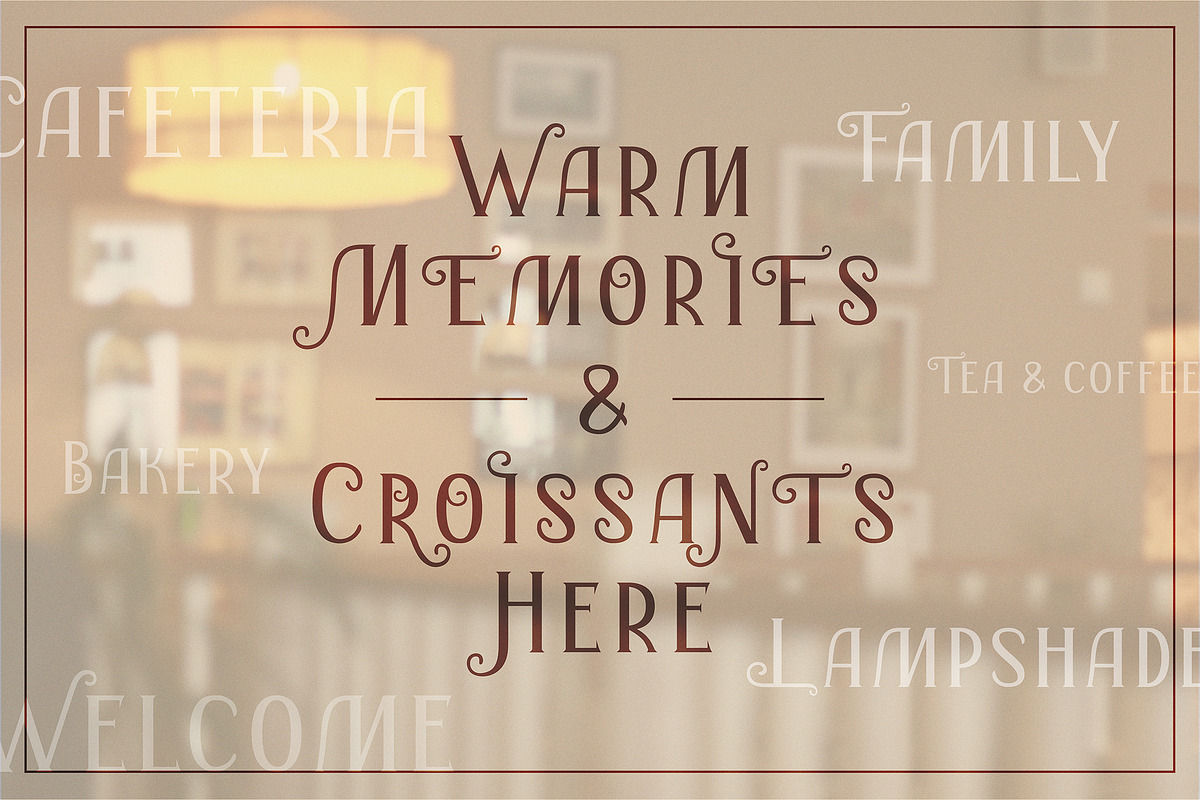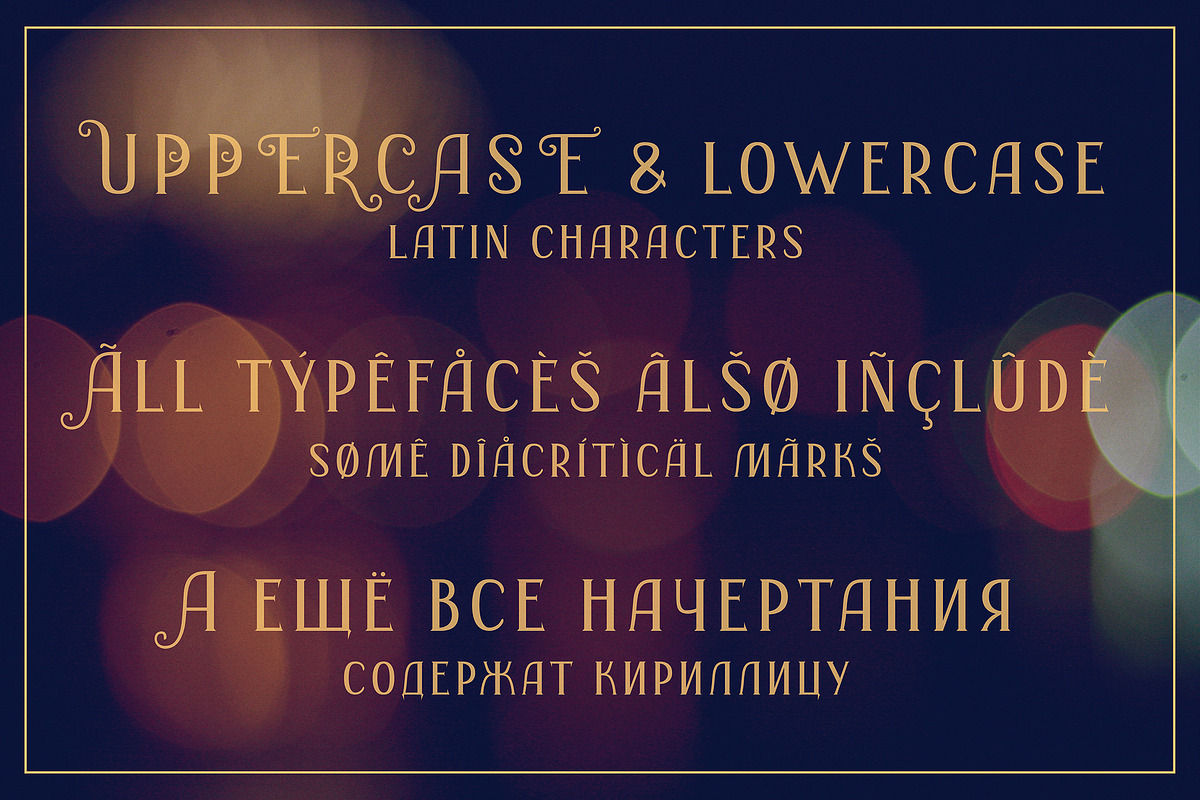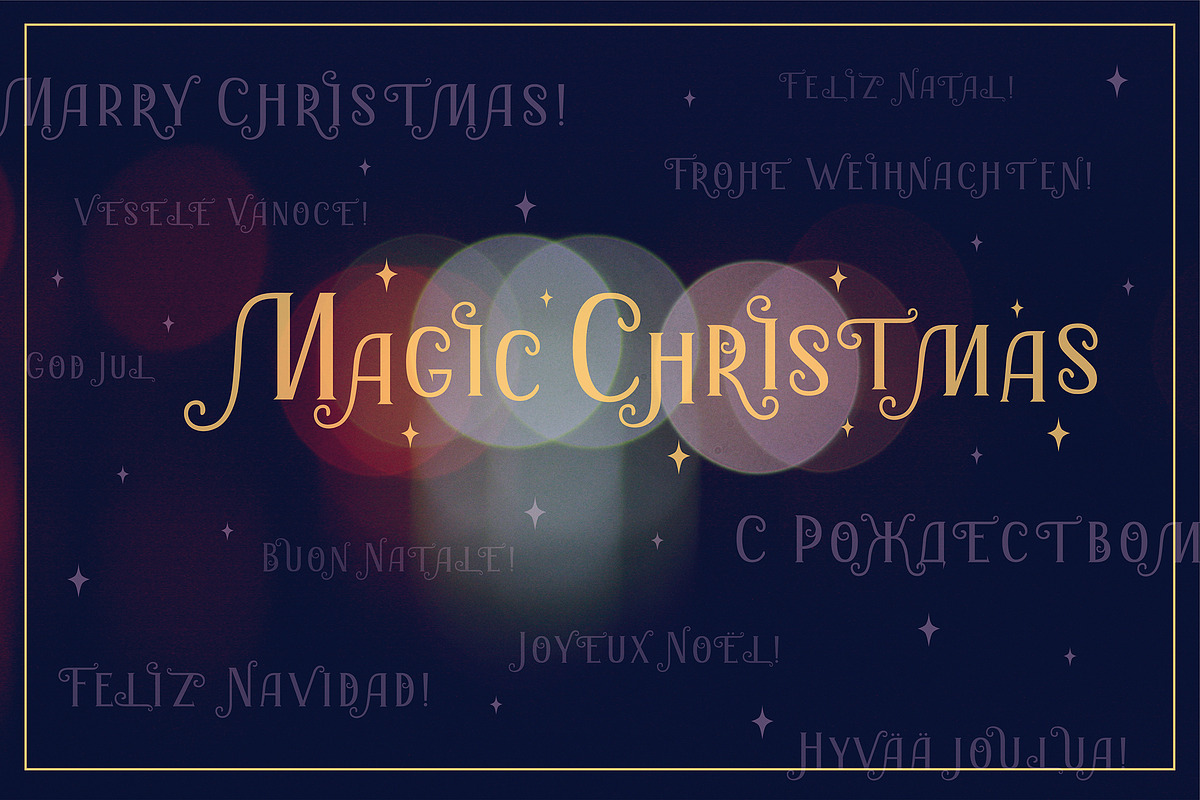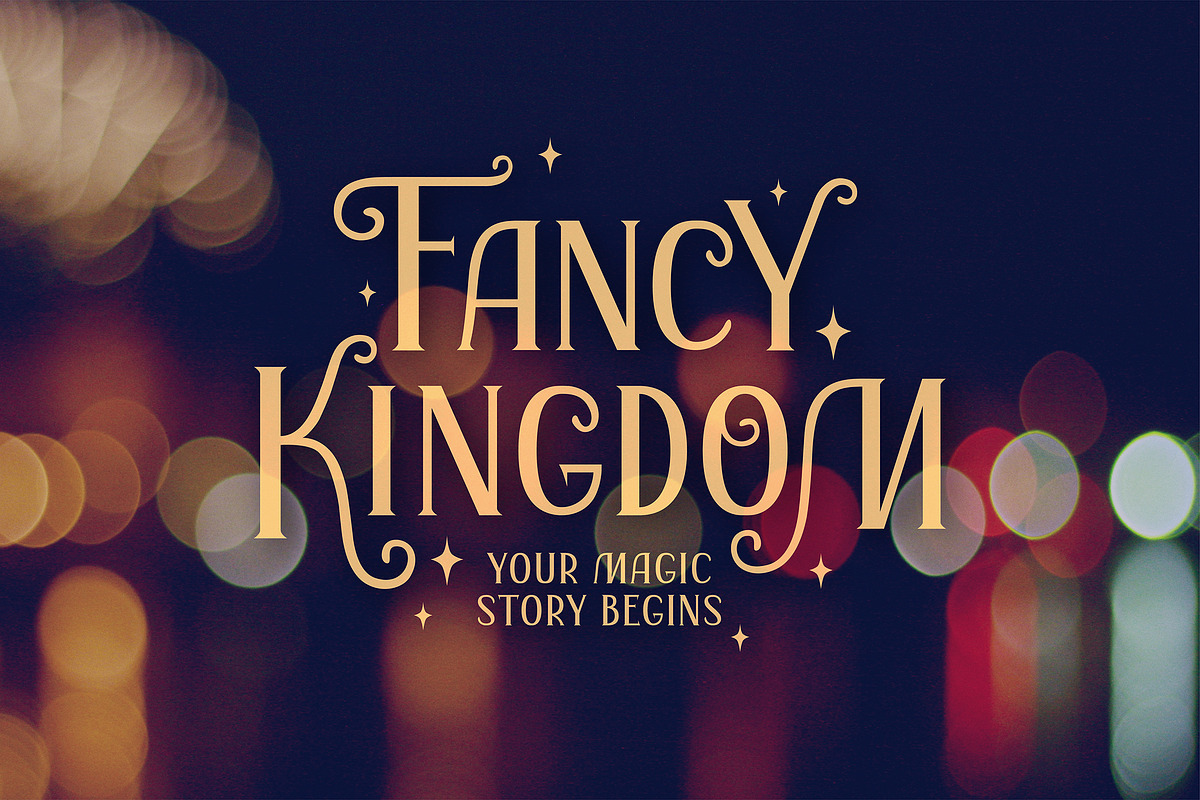
Fancy Kingdom | Latin & Cyr Serif
Fancy Kingdom is elegant serif font family wich great for wedding invitation, greeting cards, book covers or any fairy design.
This kit includes 3 typefaces:
- Regular - without curls;
- Decorative - uppercase and lowercase with curls;
- Combined - uppercase with curls.